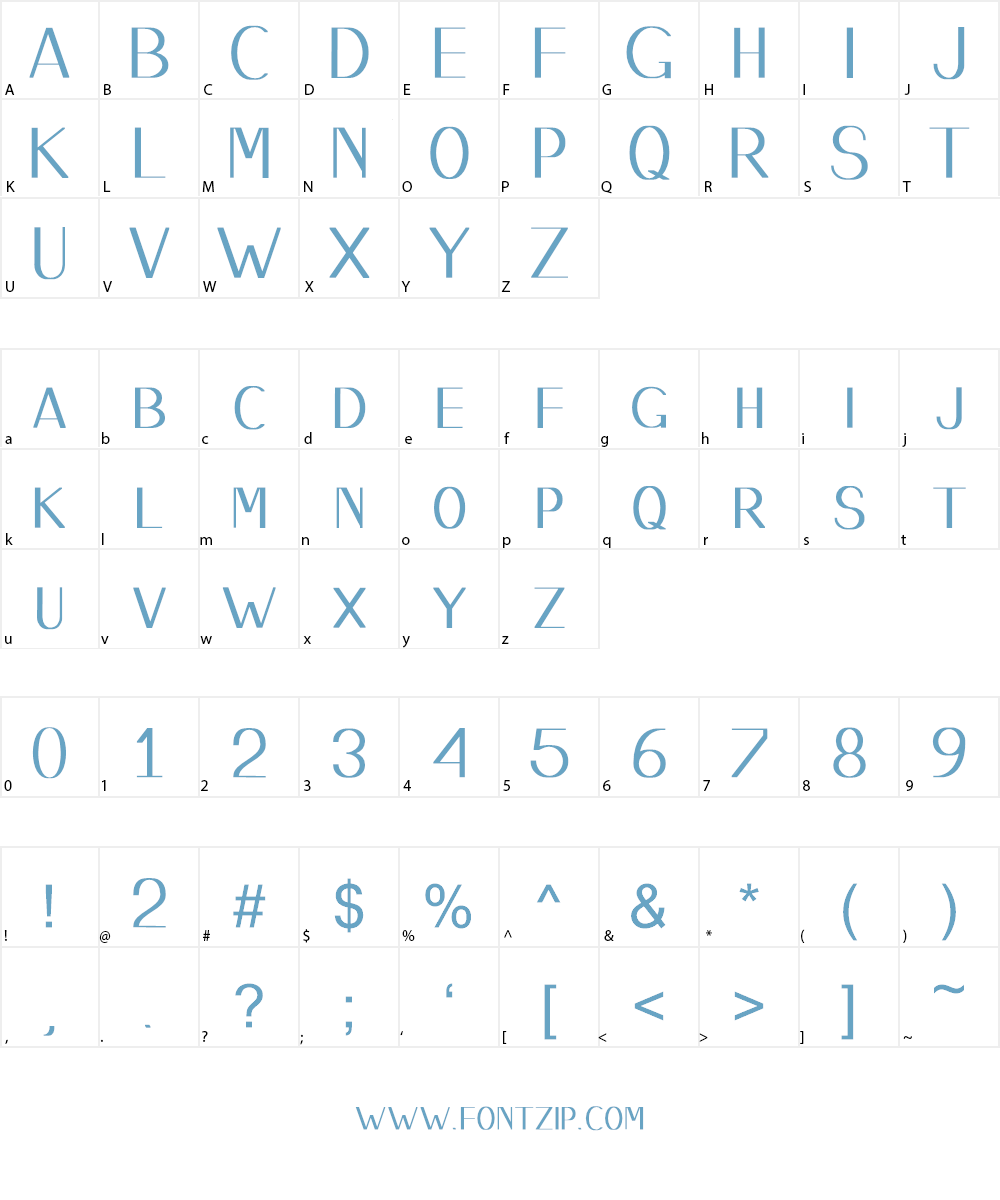
Stembase all caps typeface is about my senior technical high school. I create this typeface in order to honor my alma mater. this typeface is free commercial use. I hope it's useful for you